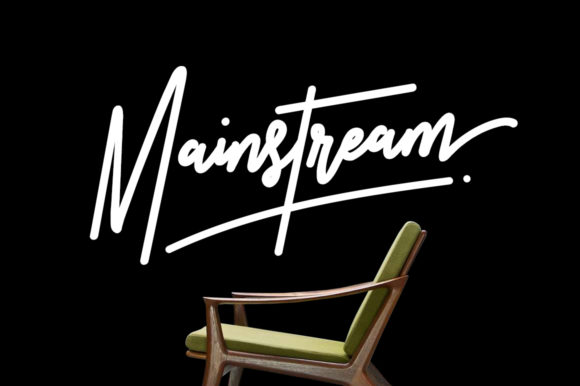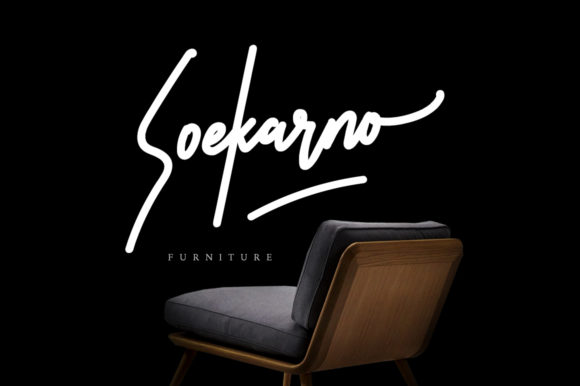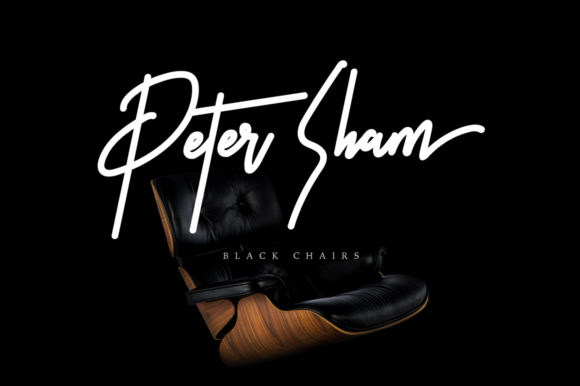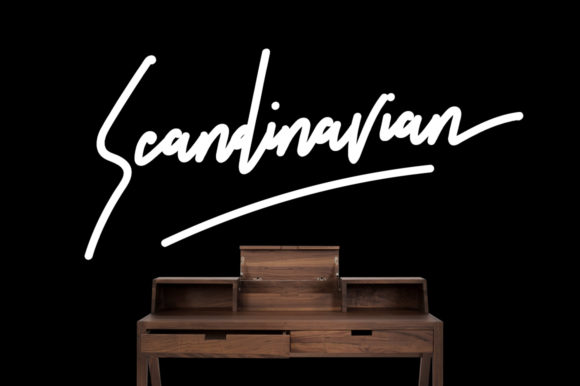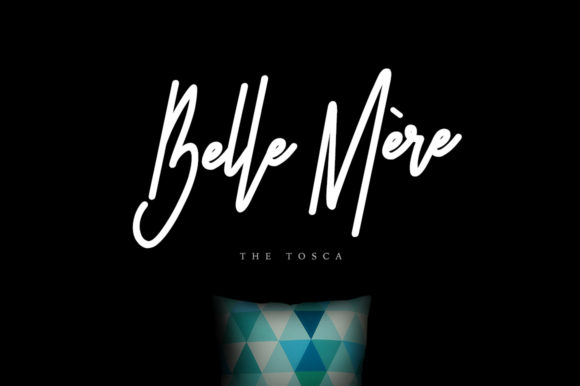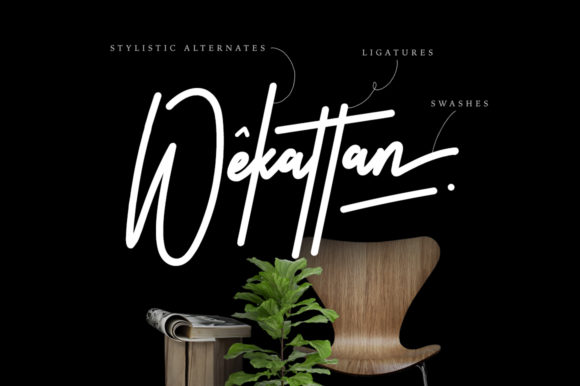
Introducing Astrolight Font: Elevate Your Designs with Elegance
Are you a designer or crafter looking for a font that adds a touch of magic to your projects? Look no further than Astrolight Font, a beautiful handwritten font that brings elegance and sophistication to a wide range of design applications.
What is Astrolight Font?
Astrolight Font is a carefully crafted handwritten font that combines the whimsy of handwritten script with the sophistication of elegant typography. With its unique blend of curves and lines, Astrolight Font is perfect for adding a personal touch to your designs, whether you’re working on branding, headings, wedding designs, invitations, signatures, logos, labels, or any other project that requires a touch of elegance.
Key Features of Astrolight Font
- Magical Handwritten Style: Astrolight Font boasts a beautiful, flowing script that adds a touch of magic to any design project.
- Elegant and Sophisticated: With its carefully crafted curves and lines, Astrolight Font brings a level of sophistication to your designs that’s hard to match.
- Versatile: Whether you’re working on branding, headings, wedding designs, invitations, signatures, logos, labels, or more, Astrolight Font is the perfect choice.
- Easy to Use: Astrolight Font is designed to be easy to use, even for those with limited design experience.
How to Use Astrolight Font in Your Designs
Astrolight Font is incredibly versatile, making it perfect for a wide range of design applications. Here are just a few ideas to get you started:
- Branding: Use Astrolight Font to create elegant and sophisticated brand identities that set your business apart.
- Wedding Designs: Add a touch of romance and whimsy to your wedding designs, including invitations, programs, and more.
- Headings and Titles: Use Astrolight Font to create beautiful headings and titles that add a level of sophistication to your designs.
- Signatures and Logos: Create elegant and sophisticated signatures and logos that showcase your brand’s personality.
- Labels and Packaging: Use Astrolight Font to add a touch of elegance to your labels and packaging.
Benefits of Using Astrolight Font
So why choose Astrolight Font for your design projects? Here are just a few benefits of using this beautiful font:
- Unique and Eye-Catching: Astrolight Font is a unique and eye-catching font that will set your designs apart from the crowd.
- Elegant and Sophisticated: With its elegant and sophisticated style, Astrolight Font is perfect for designers and crafters who want to add a touch of luxury to their designs.
- Time-Saving: Astrolight Font is designed to be easy to use, saving you time and effort in your design projects.
In conclusion, Astrolight Font is a magical handwritten font that adds a touch of elegance and sophistication to a wide range of design projects. With its unique blend of curves and lines, Astrolight Font is perfect for designers and crafters who want to create beautiful and eye-catching designs. Whether you’re working on branding, headings, wedding designs, invitations, signatures, logos, labels, or more, Astrolight Font is the perfect choice. So why wait? Download Astrolight Font today and start elevating your designs to the highest level!